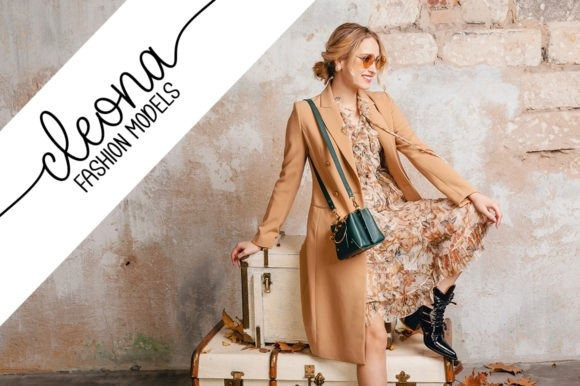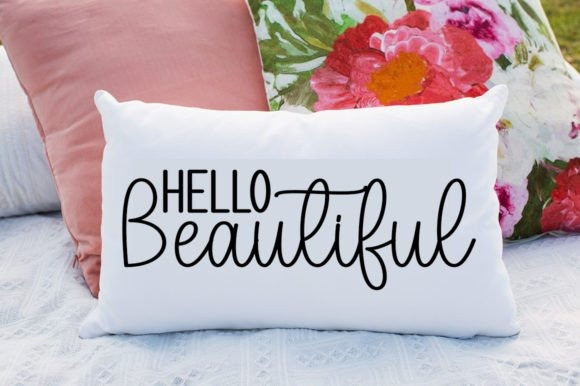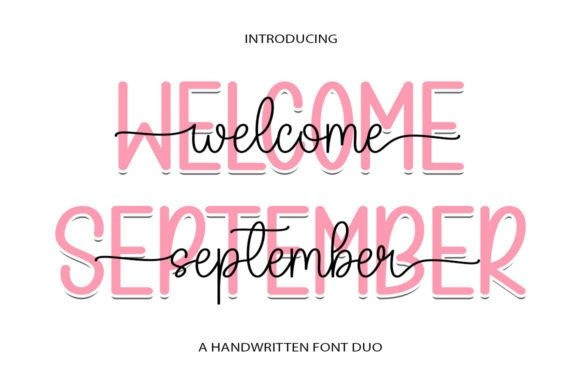
Welcome September Font Duo
Welcome September Font Duo is a stylish and delicate duo font (sans serif and script) suitable for a wide spectrum of applications. From greeting cards to headlines, this font will guarantee a romantic touch to each of your creations! Welcome September Duo is PUA encoded which means you can access all of the glyphs and ligatures with ease.